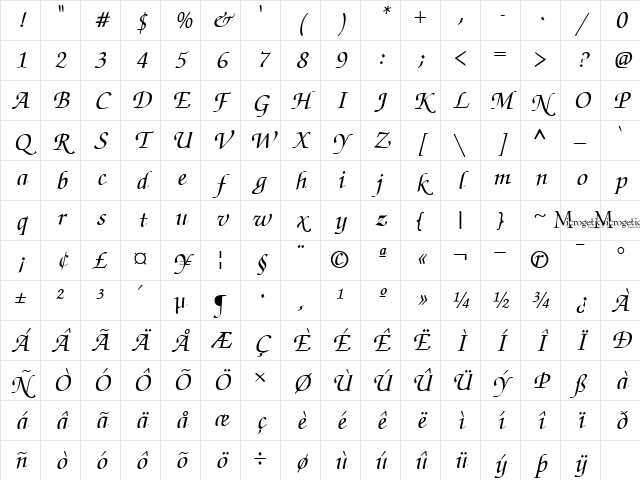
MC Chancellor Medium Italic
MC Chancellor Medium Family
Design Context for MC Chancellor Medium
MC Chancellor Medium is a composed and adaptable typeface that performs quietly and consistently across a wide range of design contexts. The slanted form adds forward momentum and visual energy.
Pro Tip: Use MC Chancellor Medium for emphasis, pull quotes, and subheadings where its slanted energy can add rhythm to the layout.